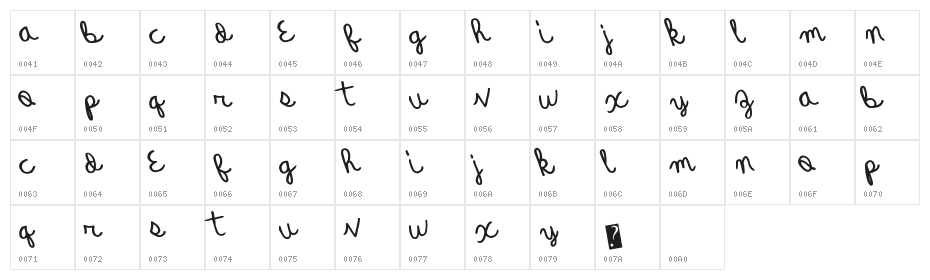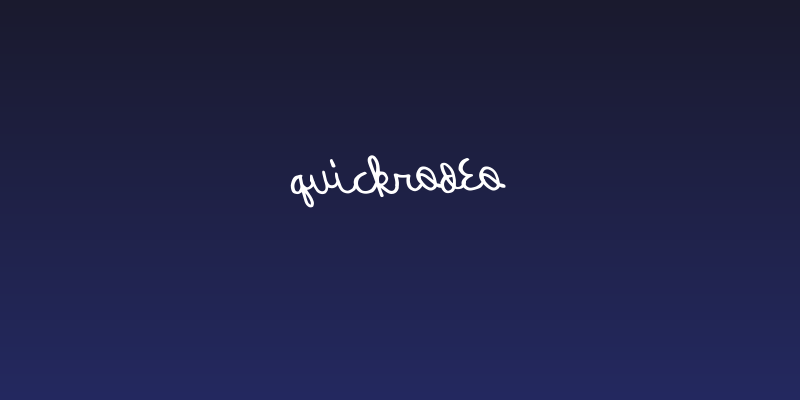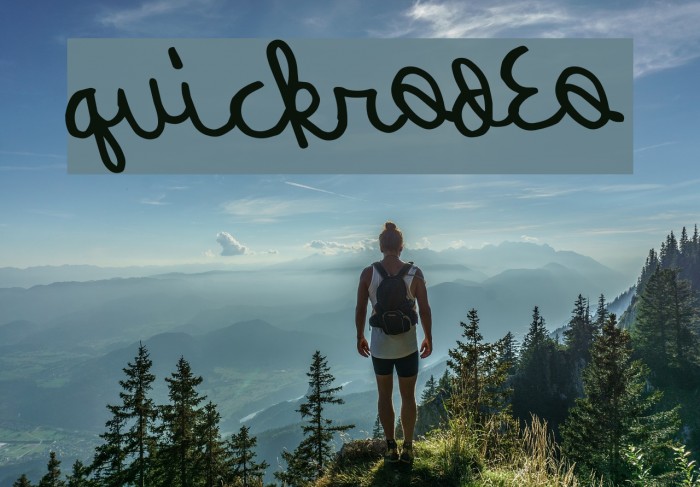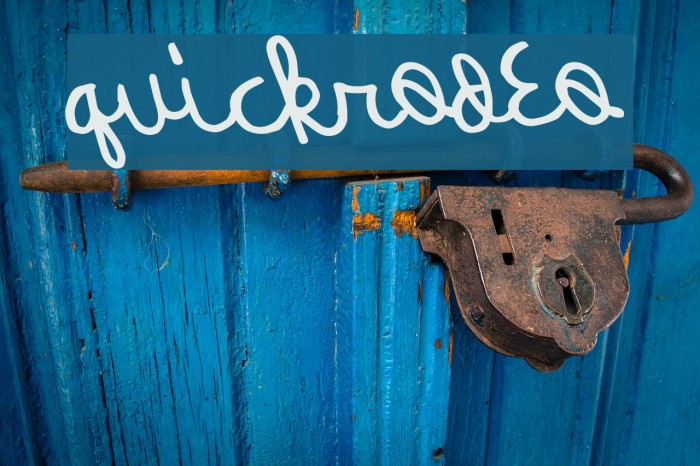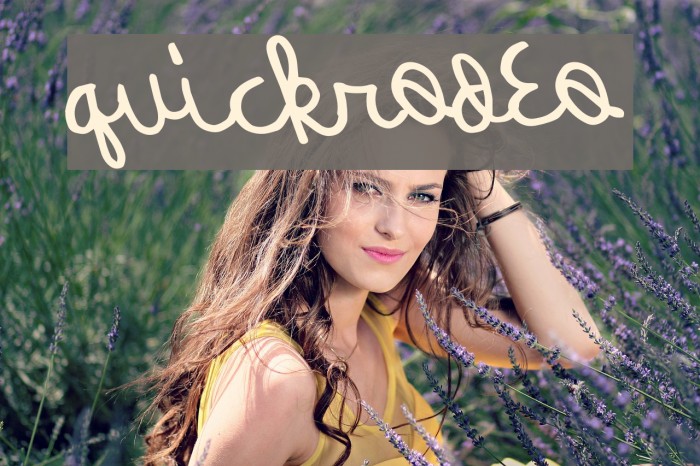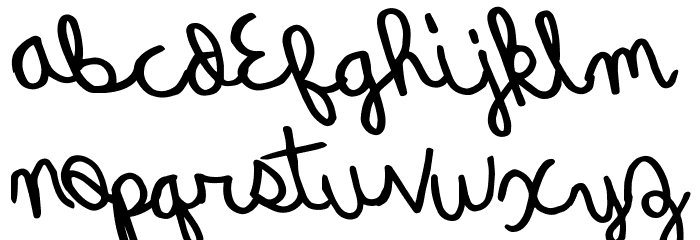
QuickRodeo Font
QuickRodeo Description
This font features a playful and energetic handwritten style, characterized by its fluid and continuous strokes. The letters are connected, giving it a cursive appearance, yet it maintains a casual and approachable feel. The strokes vary slightly in thickness, adding a dynamic and lively touch to the overall design. The font exudes a sense of spontaneity and creativity, making it ideal for projects that require a personal and informal touch. Its unique style stands out, making it suitable for eye-catching designs.
| Overall Style | Casual and Creative |
| Use Case | Headlines, Invitations, Personal Branding |
| Proposed Projects | Ideal for greeting cards, invitations, personal branding, and creative projects that require a personal touch. |